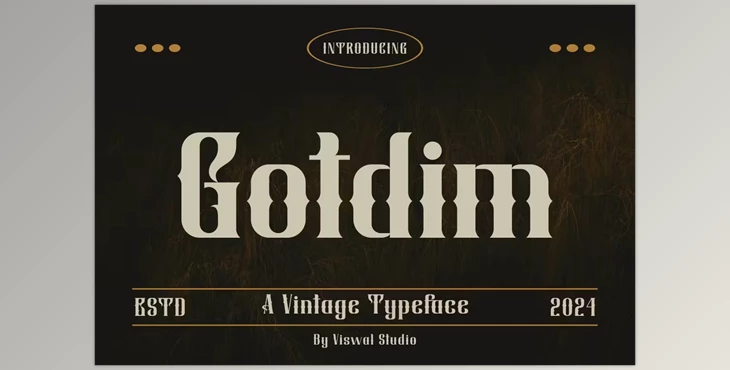
Gotdim - Vintage Font:
Introducing Gotdim - a versatile font perfect for badges, labels, logos, branding, magazines, posters, and more. With both uppercase and lowercase letters, numerals, punctuation, multilingual support, and OpenType features, this font offers everything you need for outstanding designs. For even greater impact, seamlessly pair it with other fonts as a complementary element.